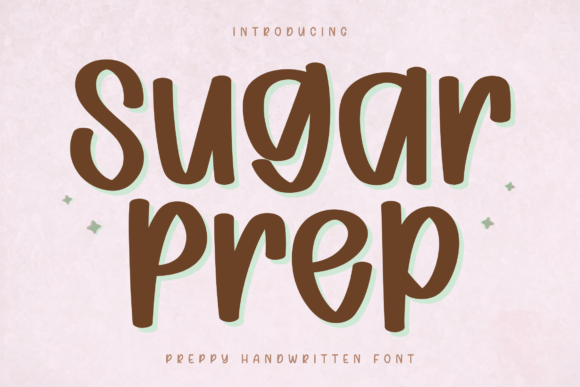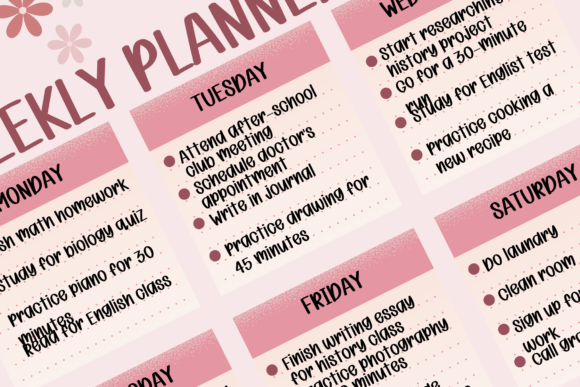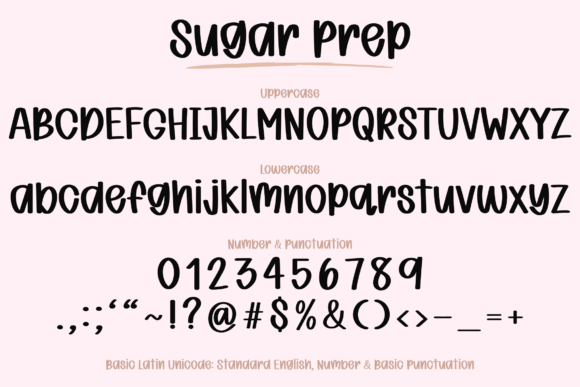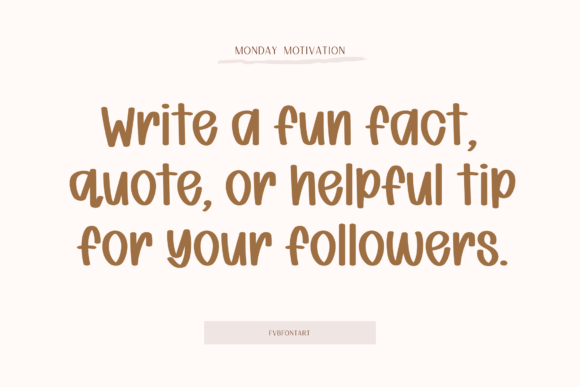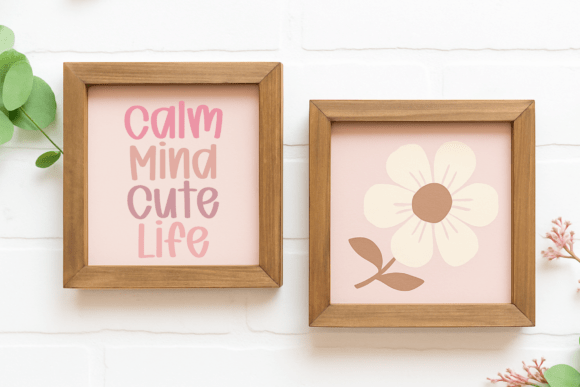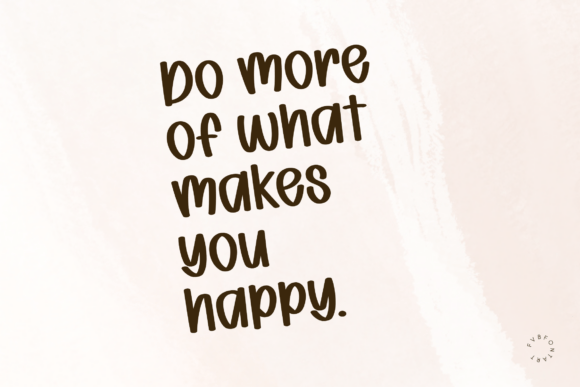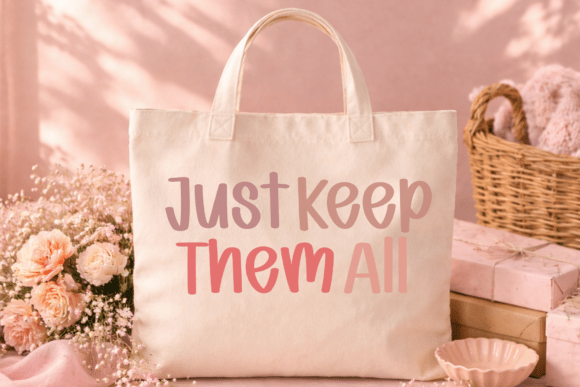
Sugar Prep Script Fonts
Elevate your design toolkit with Sugar Prep, a typeface that captures the spirit of modern collegiate chic through fluid, hand-drawn letterforms. Engineered with a soft, pillowy geometry, it offers a refreshing alternative to traditional scripts by blending a relaxed, airy feel with razor-sharp legibility.
Sugar Prep is an essential asset for designers seeking an artisanal touch that doesn’t compromise on professionalism. Its uniform weight and rhythmic curves make it an ideal choice for high-end packaging, minimalist logos, and vibrant digital layouts. From the precision of intricate vinyl cutting to the nuance of digital stationery, this font provides a consistent, high-impact aesthetic that feels both curated and authentically personal.